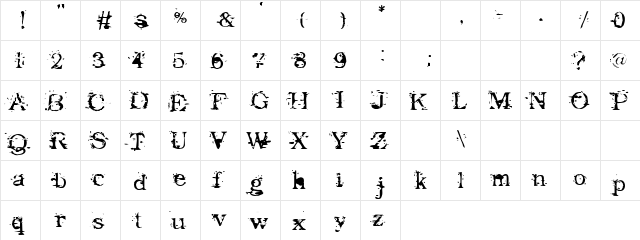
Green Piece Regular
Design Context for Green Piece Typeface
Green Piece is a composed and adaptable typeface that performs quietly and consistently across a wide range of design contexts.